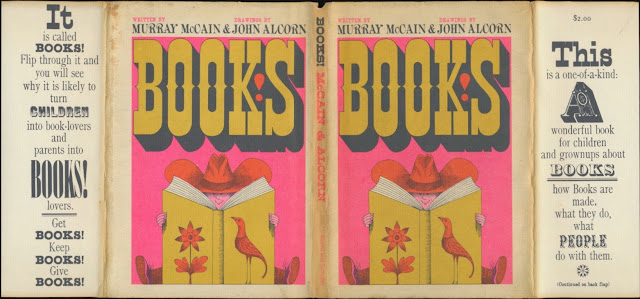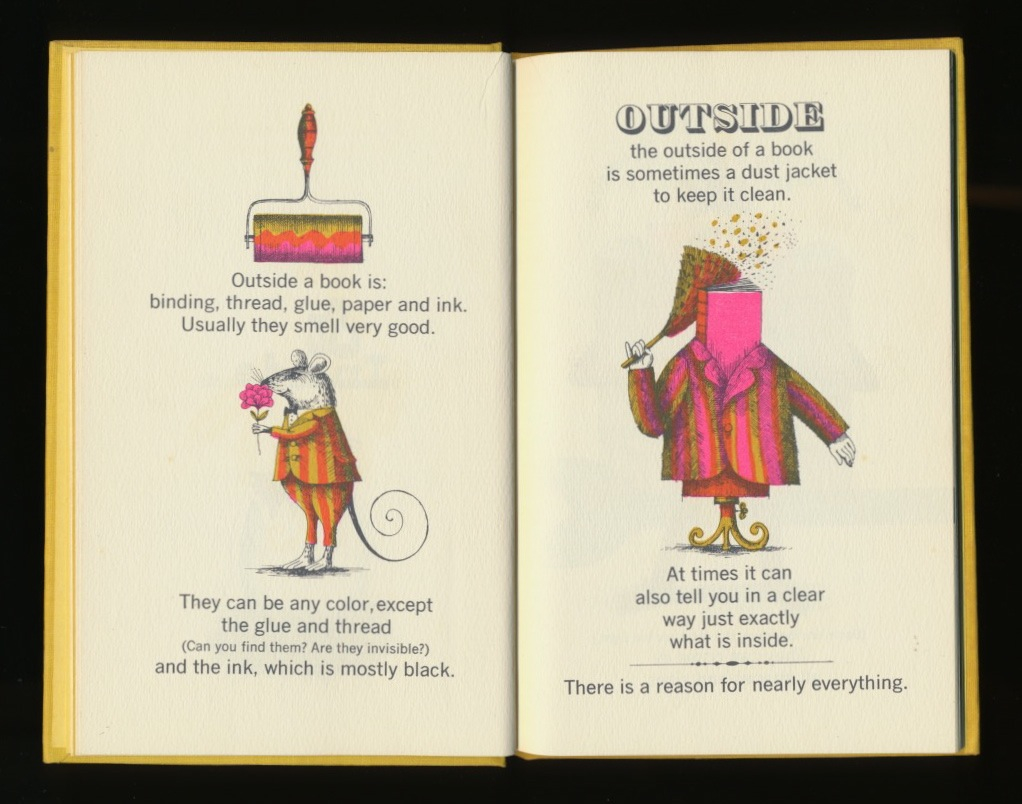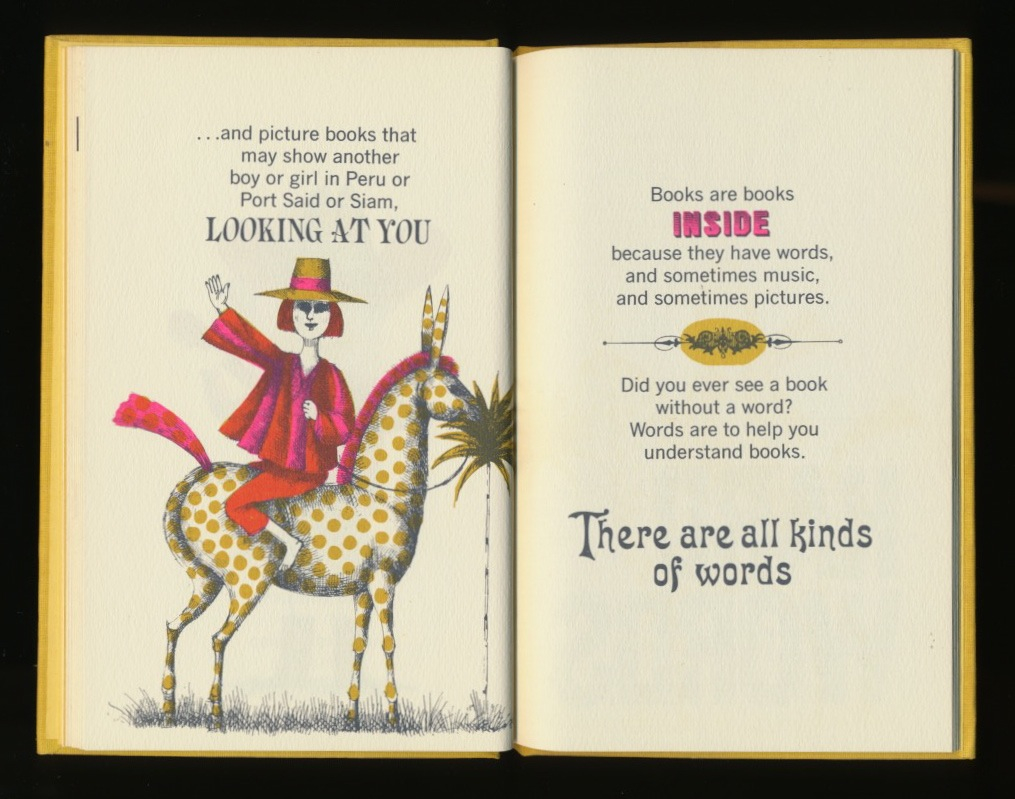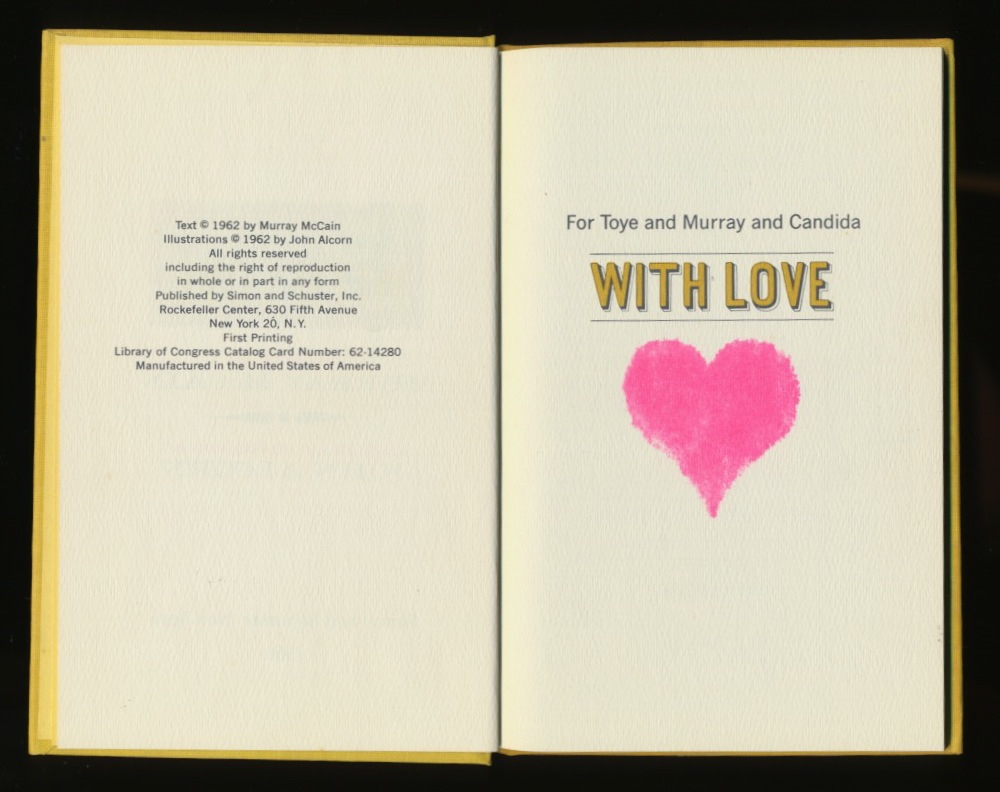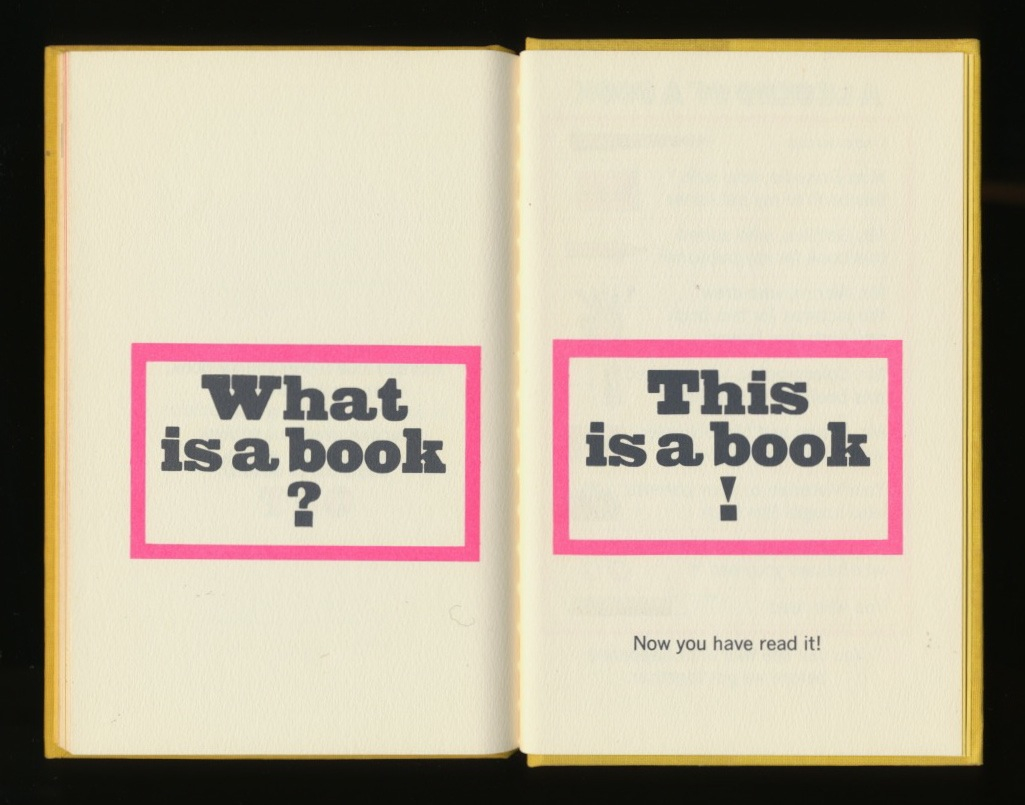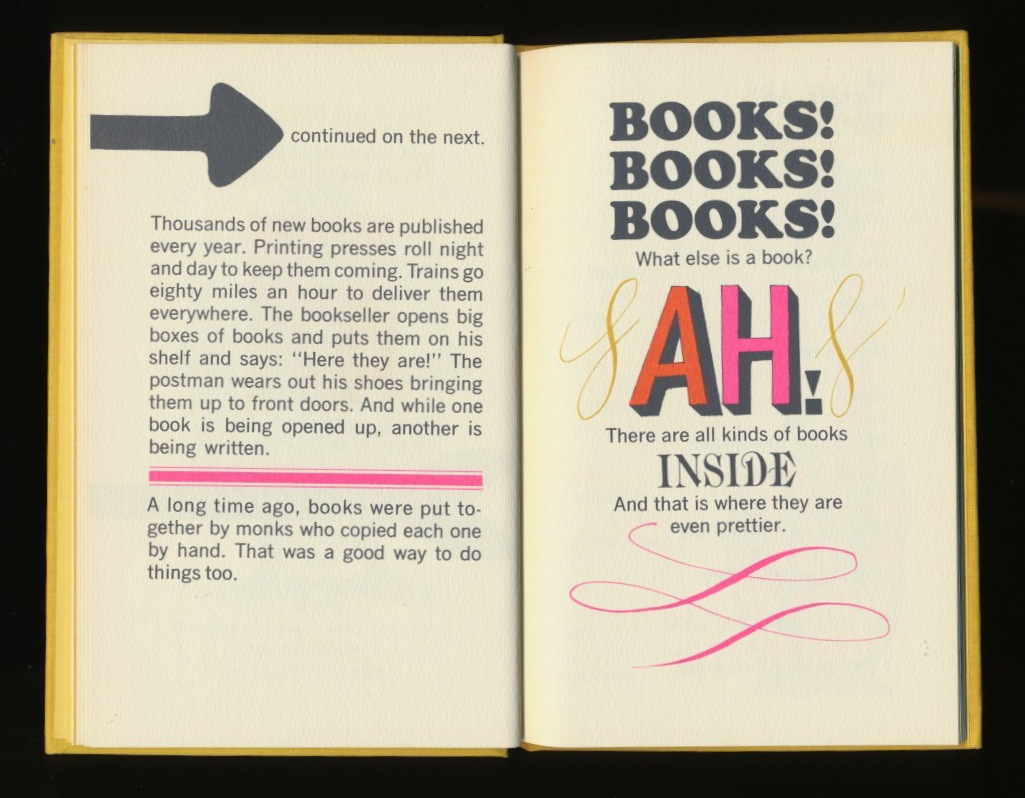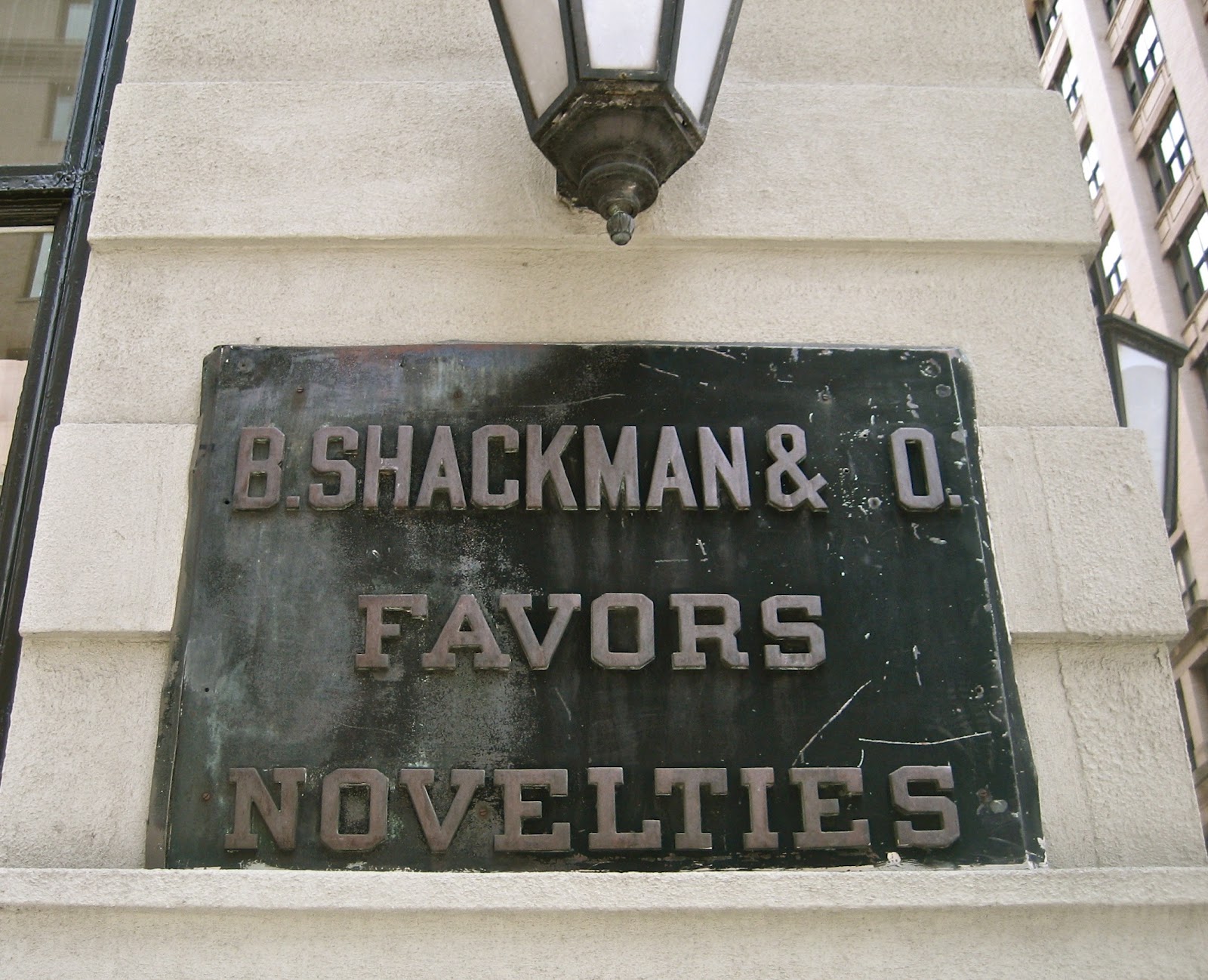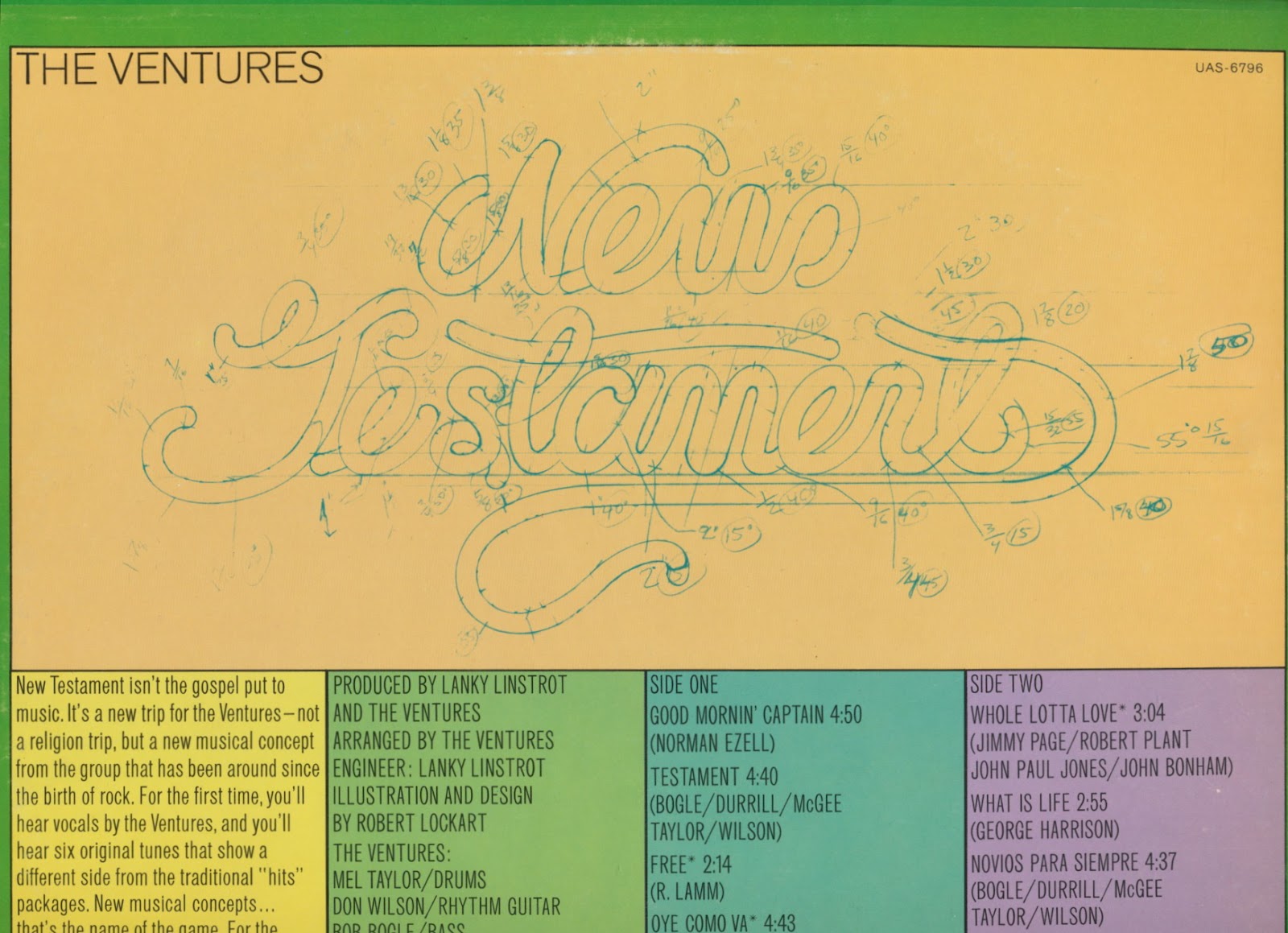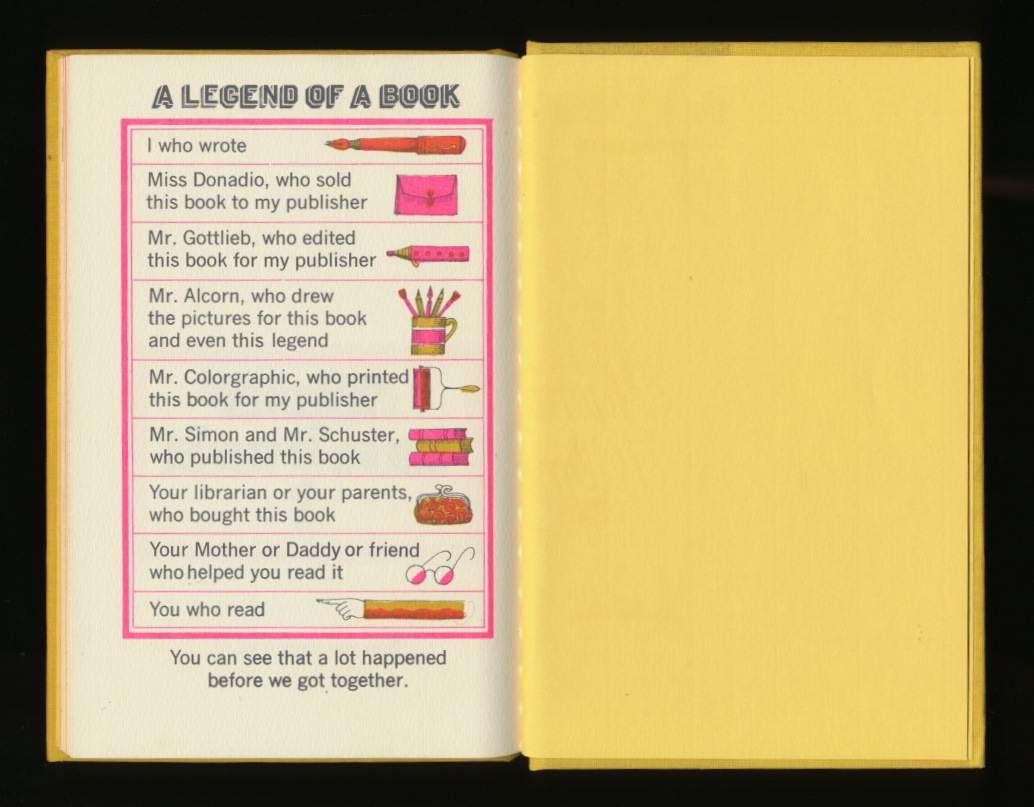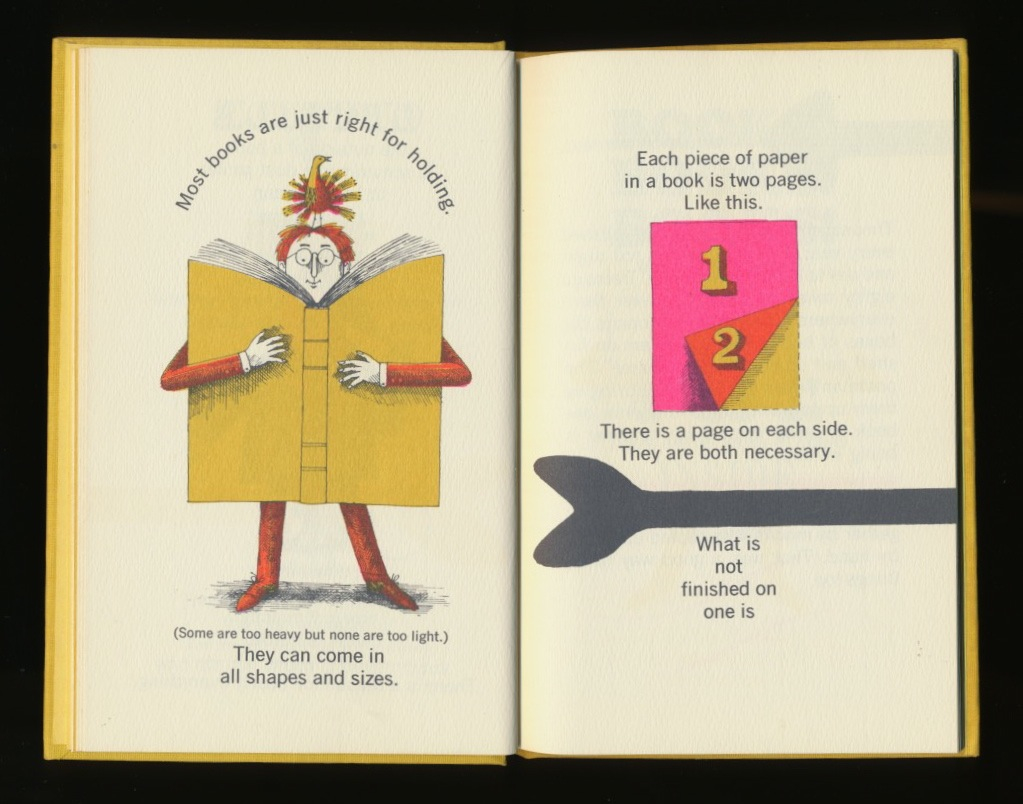
My 1979/1980 Christmas and New Year card was printed front and back and used the typeface ITC Serif Gothic, which I modified by removing the serifs. My name was set in ITC Zapf Book. The star was hand-cut. Below is a scan of two cards.
Street Scene: Rosebud
My holiday greeting from the 1980s. The “Rosebud” sled was purchased at
the B. Shackman novelty store on Fifth Avenue at 16th Street in Manhattan.
Although the physical store no longer exists, it does have an online presence.
Lettering: New Testament
In the early 1970s, I found the 1971 album, New Testament by the Ventures, in a cut-out bin. What interested me was what was on the back: a blue pencil rendering of the title lettering with notations on the ellipse size and degree. At the time I was a graphic design student at Arizona State University and had never seen anything like it. Compared to the finished lettering, there were a few changes: the lowercase "e" is uniform; the "s" connects to the "e"; and the lowercase "n" has a vertical stroke. Presumably, Robert Lockart did the lettering, too.
Front
Back
Typography: John Alcorn’s Books!
Dust jacket and selected pages from
Books!
Murray McCain
Illustrated by John Alcorn
Simon and Schuster, 1962